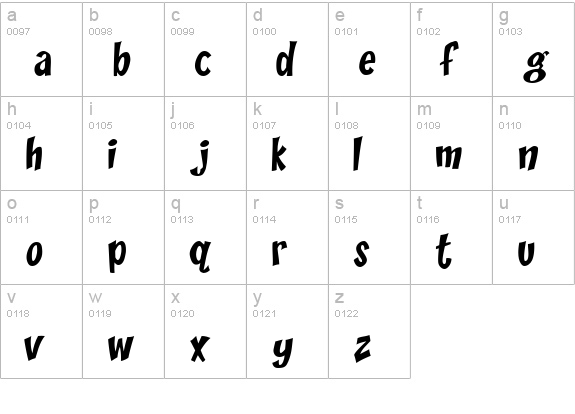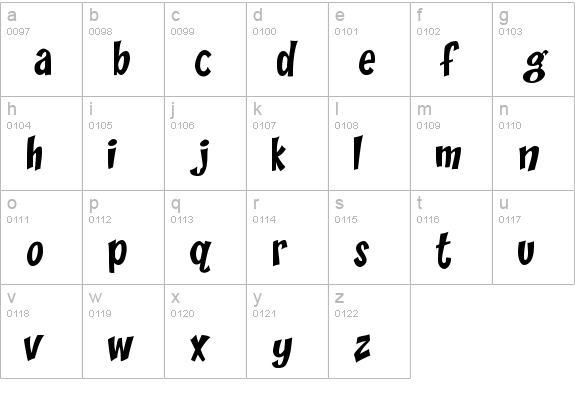
Yikes! Font Details
The Yikes! font is a playful and quirky typeface that is sure to catch the eye with its bold and dynamic design. Perfect for adding a touch of fun and whimsy to your projects, this font is ideal for everything from posters and flyers to social media graphics and branding materials. Best of all, the Yikes! font is completely free to download at FontsMarket.com. So go ahead and grab this fantastic font today to bring a burst of creativity to your designs!